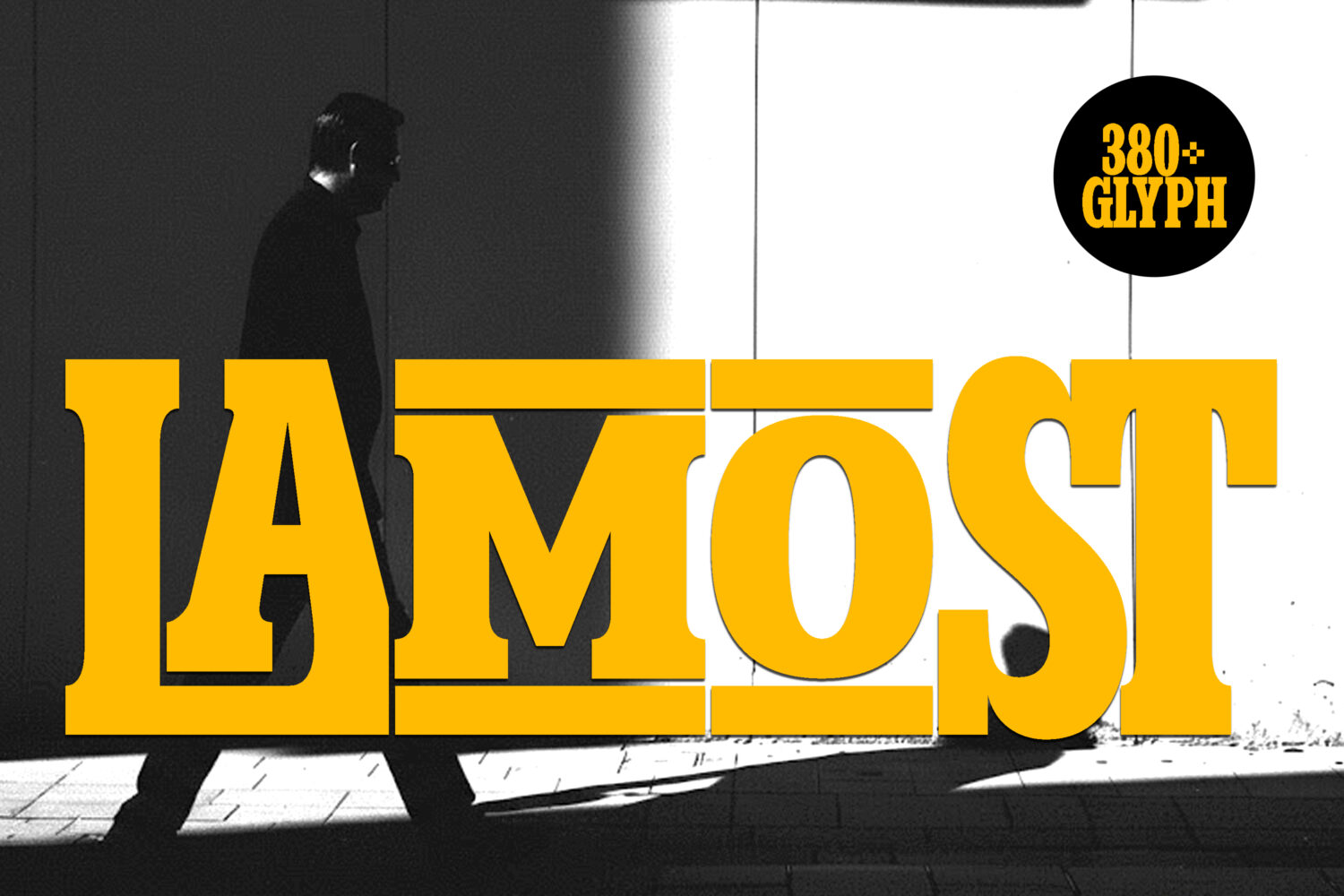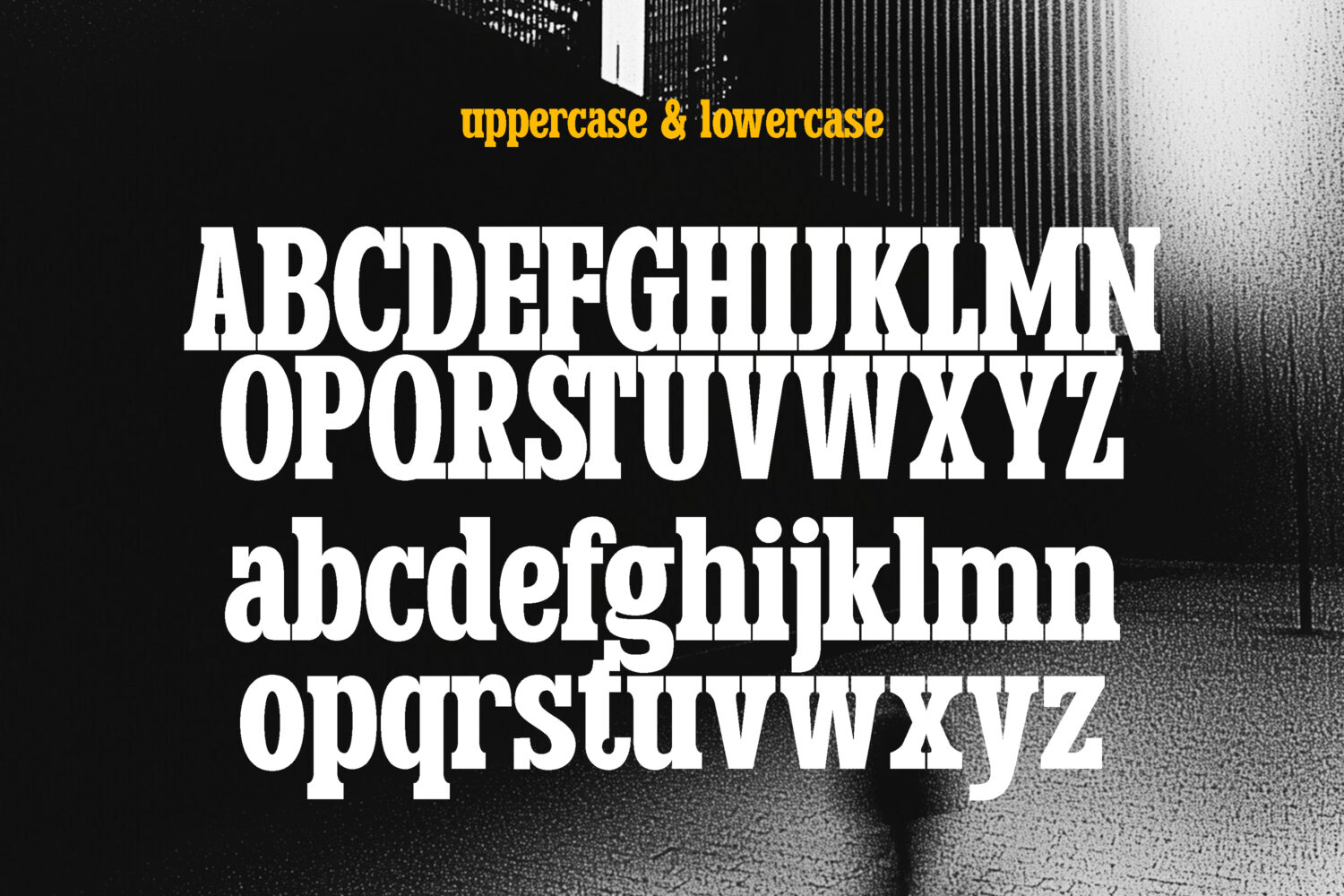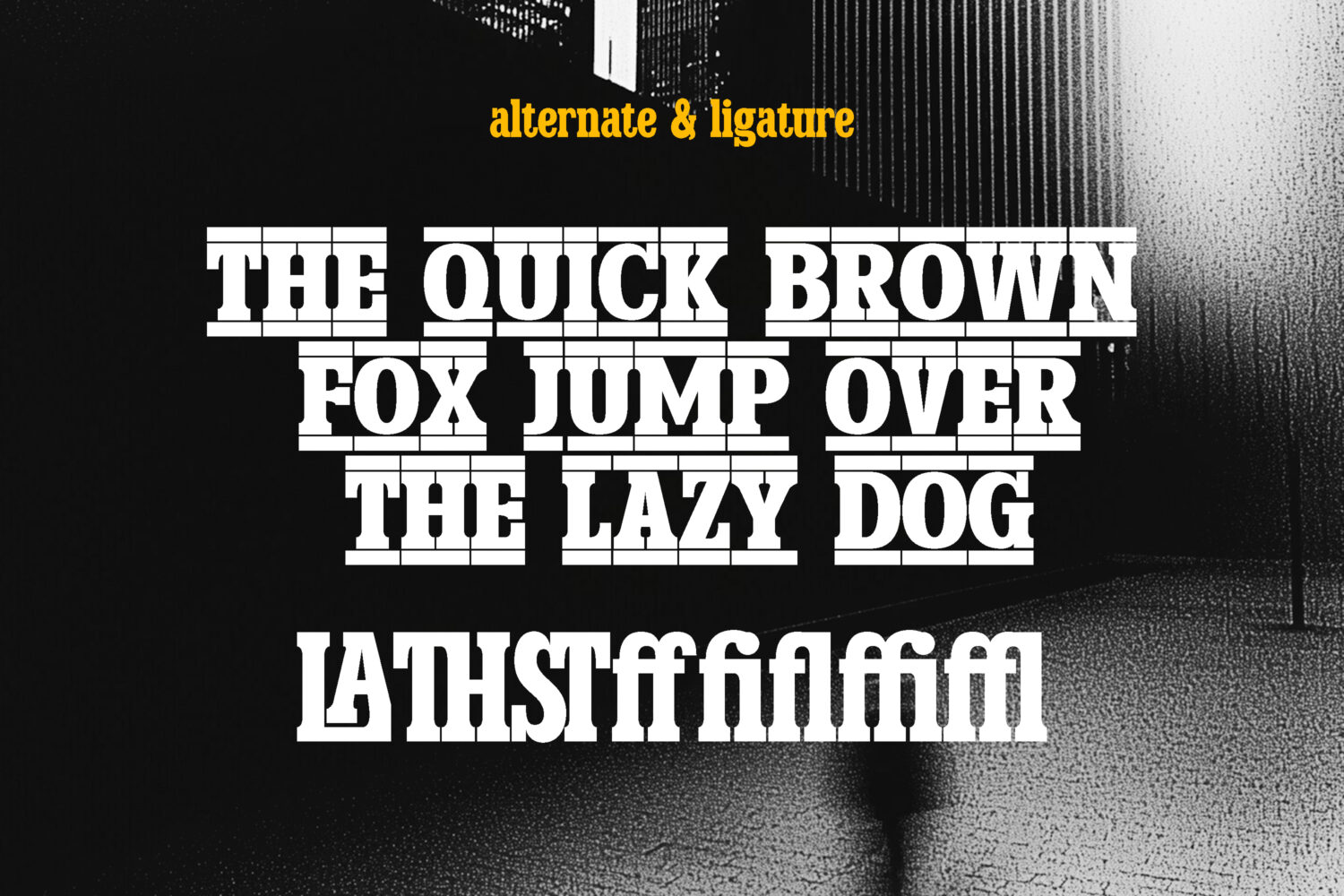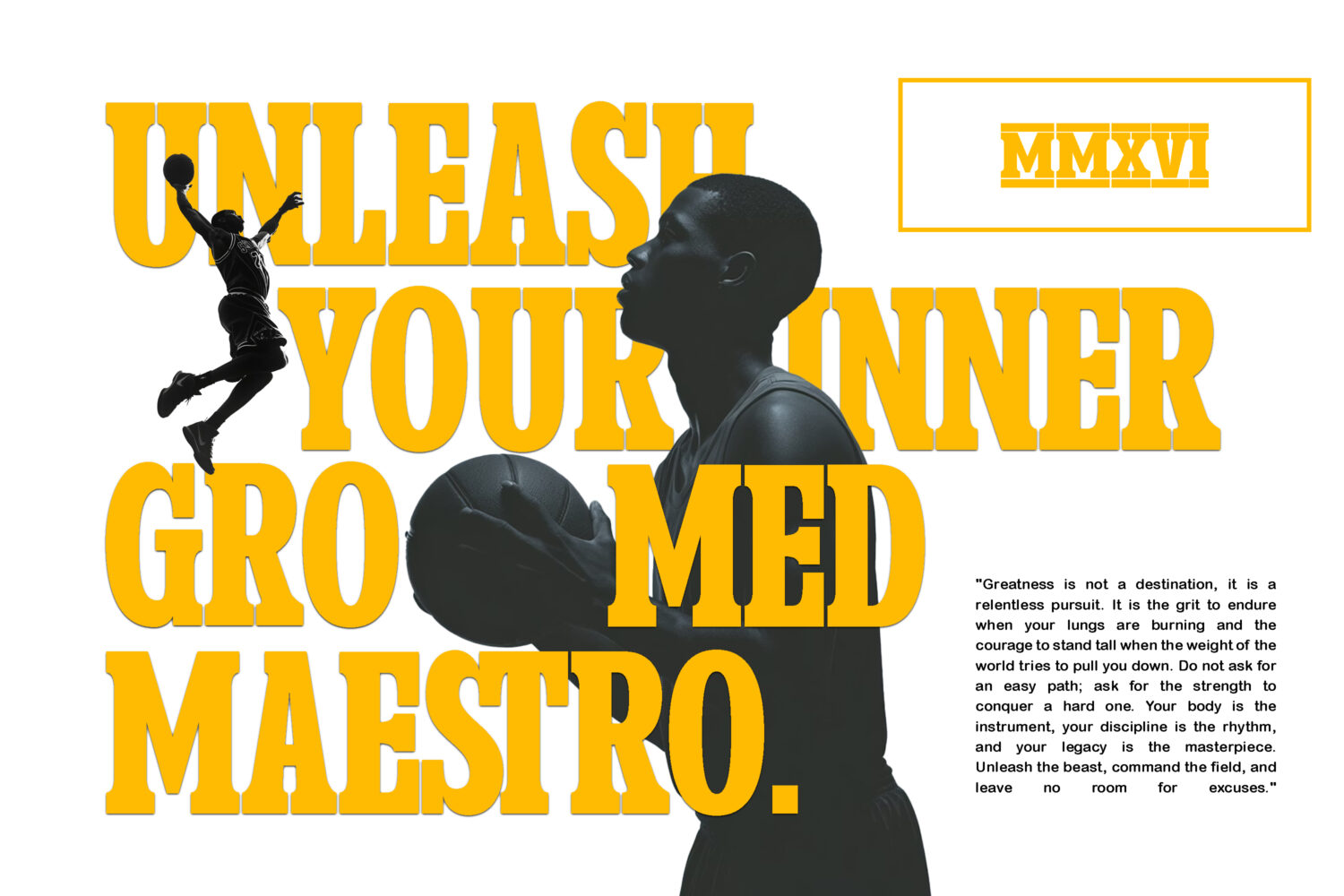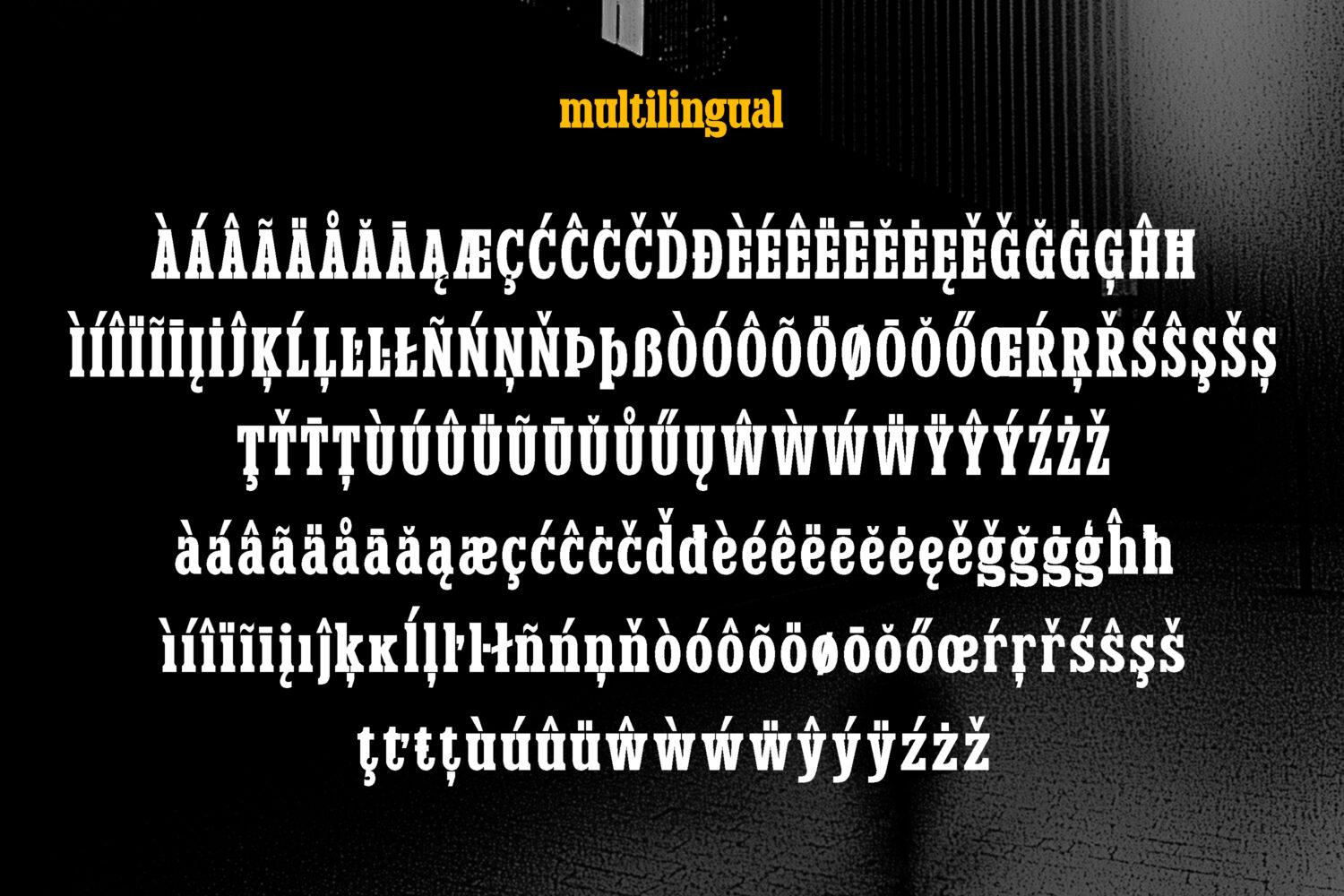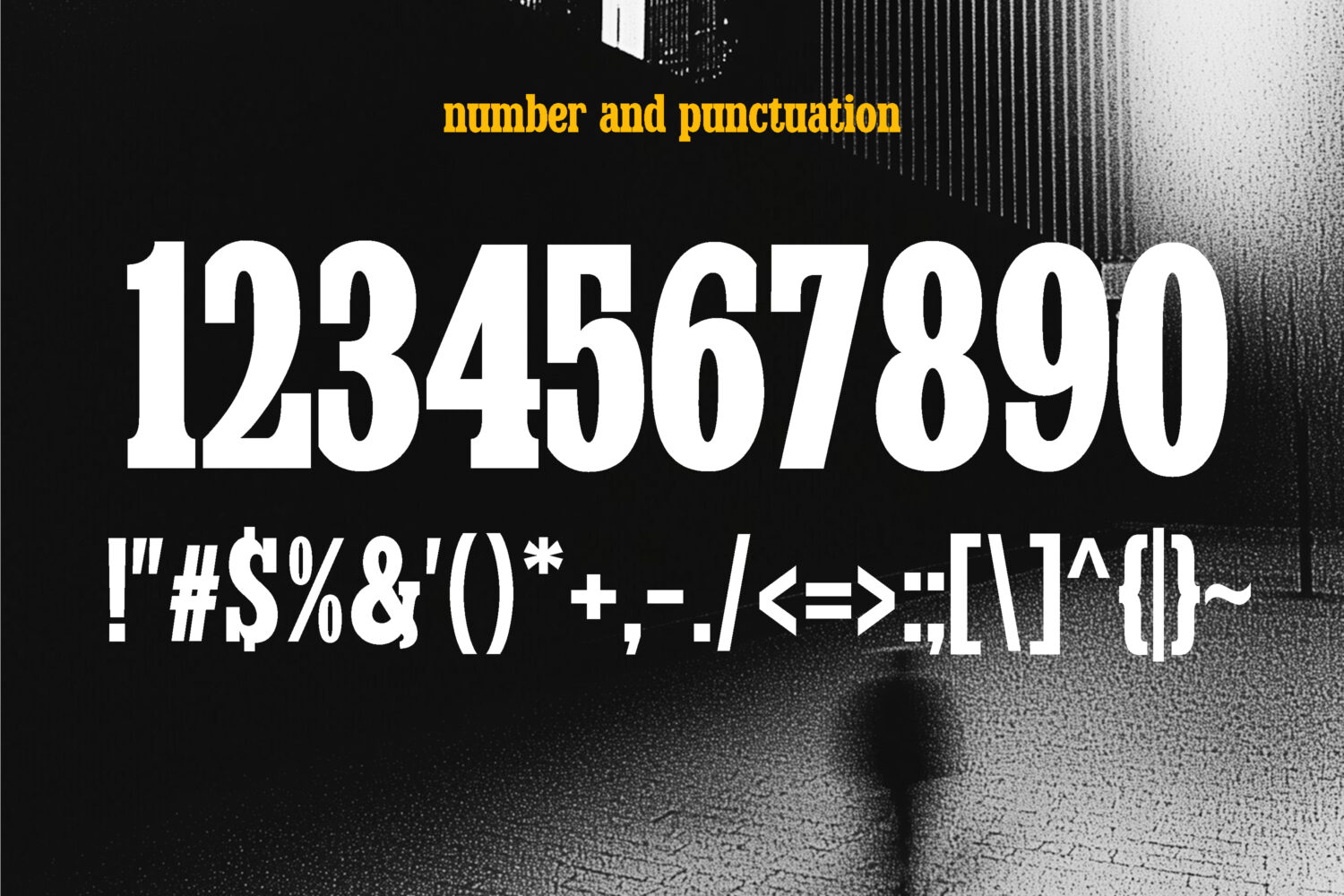
Lamost is a slab serif font designed to add a touch of nostalgia to any project. It has a cool and playful look that can be used for logos, branding, invitations, stationery, wedding designs, social media posts, and so much more. Featuring the perfect amount of trendiness, this font will make your designs come to life.
Features :
uppercase & lowercase
numbers and punctuation
multilingual
Alternate Characters